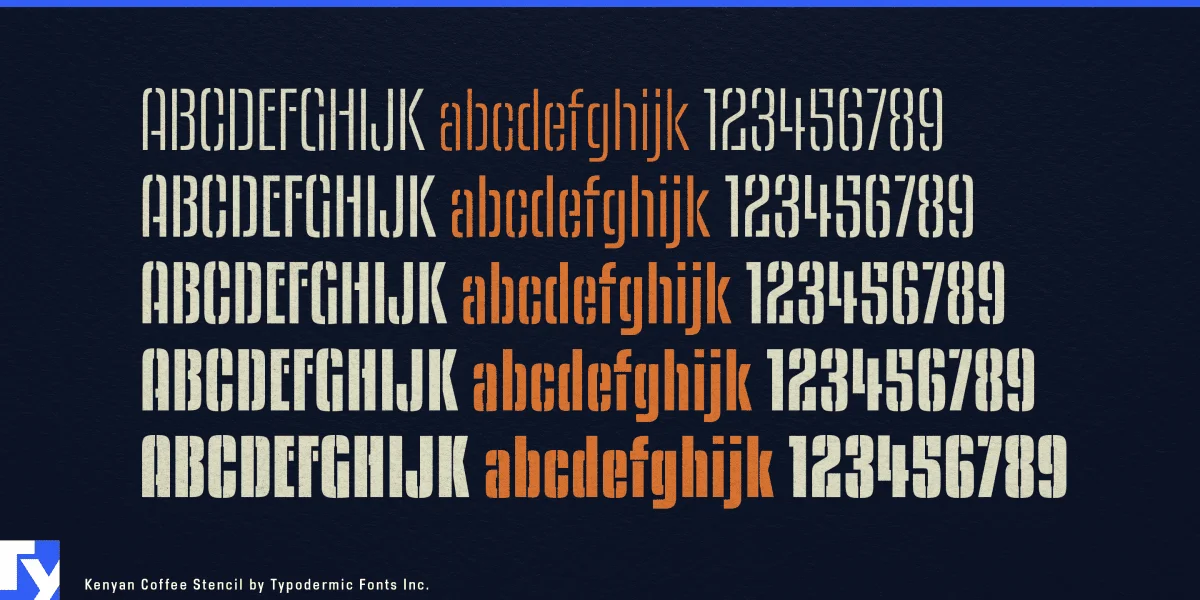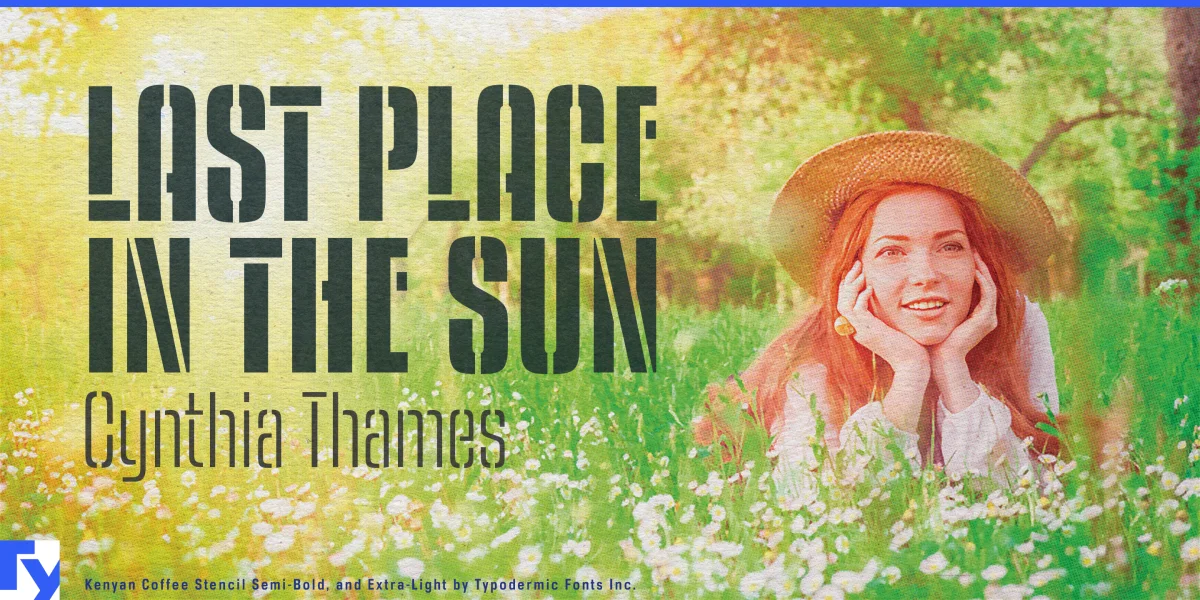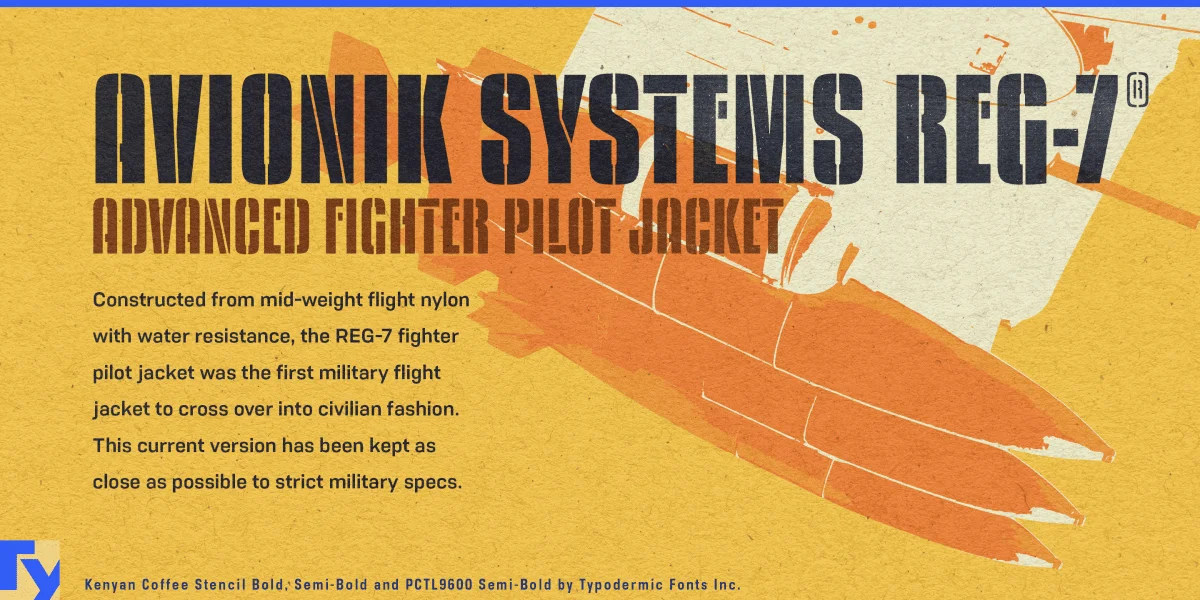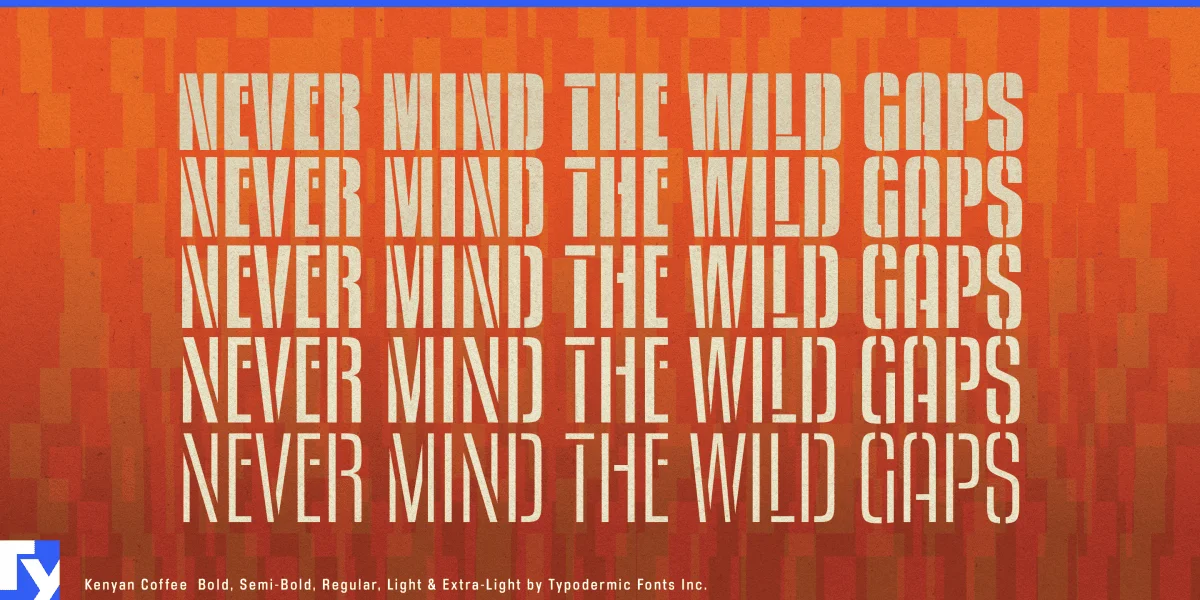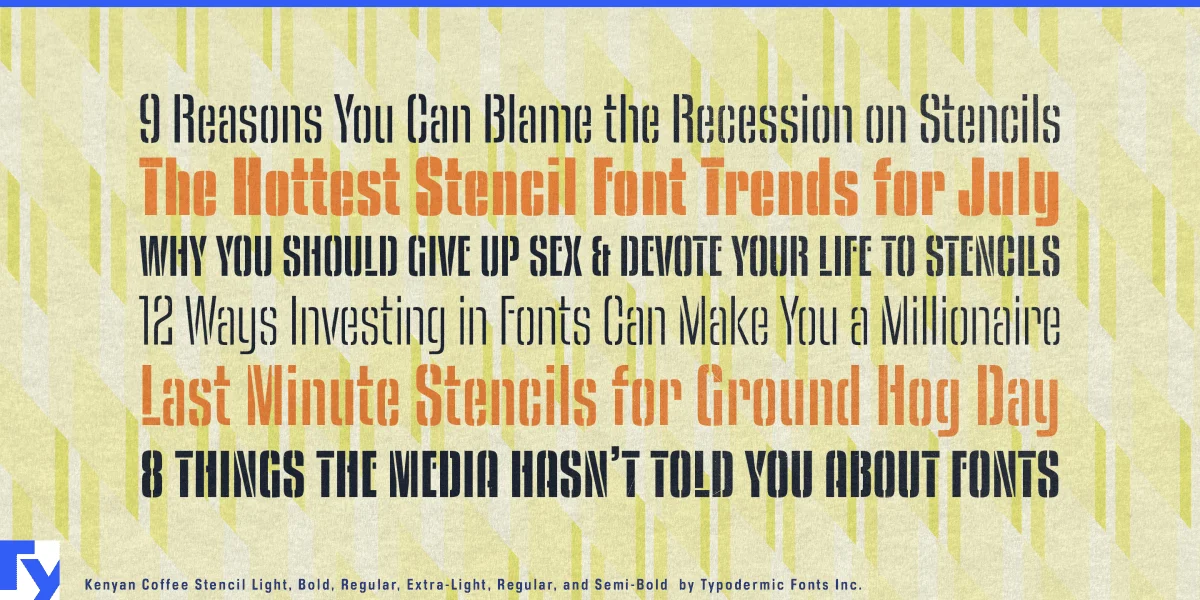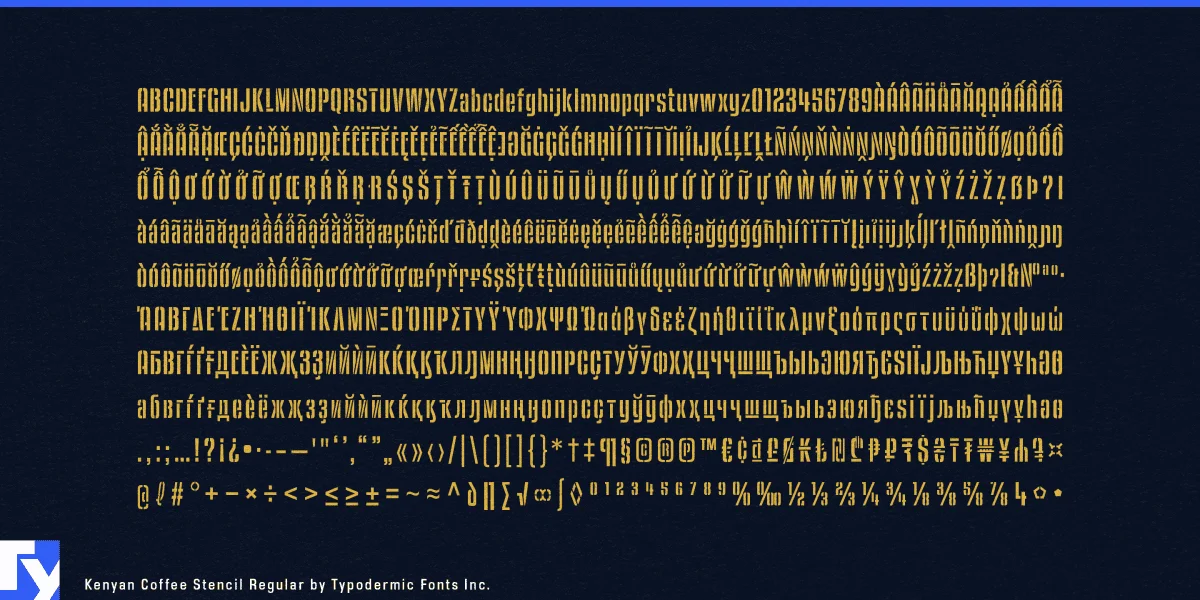
Kenyan Coffee Stencil emerges as a bold typographic statement, seamlessly blending industrial grit with Art Deco elegance. This unique headline typeface carves out its own niche in the design world, offering a powerful tool for creators who seek to infuse their work with both strength and sophistication.
At its core, Kenyan Coffee Stencil embodies the spirit of practical aesthetics. Its stencil design speaks to a world of honest labor and utilitarian beauty, evoking images of factory floors and shipping crates. Yet, there’s an undeniable touch of Art Deco flair in its proportions and curves, adding a layer of refinement to its rugged character. This duality allows the typeface to bridge the gap between raw industrial power and the sleek aesthetics of early 20th-century design. The versatility of Kenyan Coffee Stencil is one of its standout features. With five carefully crafted weights, it offers designers a nuanced palette for expression. From the lightest weight that whispers with understated toughness to the boldest that shouts with unapologetic strength, this typeface adapts to a wide range of design needs. This flexibility makes it an ideal choice for projects that demand visual impact without sacrificing sophistication—perfect for everything from edgy brand identities to attention-grabbing posters.
What truly sets Kenyan Coffee Stencil apart is its remarkable linguistic reach. Supporting an extensive array of writing systems—including Latin-based European languages, Vietnamese, Greek, and most Cyrillic-based scripts—this typeface is a true global communicator. From the industrial hubs of Eastern Europe to the bustling streets of Hanoi, from the design studios of New York to the advertising agencies of Moscow, Kenyan Coffee Stencil speaks with a consistent voice, ensuring that your message retains its impact across cultures and continents. The non-stencil variant, Kenyan Coffee, complements its rugged sibling perfectly. This sleeker version maintains the family’s compact, practical design while offering a smoother aesthetic suitable for body text and more subtle applications. Together, they form a powerful typographic duo capable of handling entire design systems with cohesion and style.
Embrace Kenyan Coffee Stencil, and watch as it transforms your designs into powerful visual statements. From creating impactful logos that convey strength and reliability to crafting editorial layouts that balance readability with industrial chic, Kenyan Coffee Stencil stands ready to articulate your vision with clarity and character. With Kenyan Coffee Stencil, your designs don’t just communicate—they resonate with the raw energy of honest work and the polished finesse of thoughtful craftsmanship.